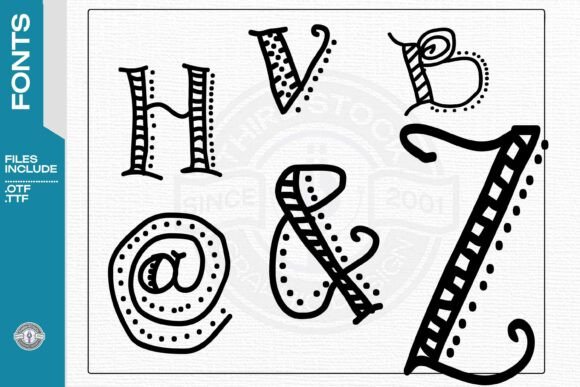
Introducing Chaotic Whimsy Font: A Masterpiece of Intricate Doodle Display
Are you a designer, crafty enthusiast, or a bohemian soul looking for a font that embodies your eclectic and meticulous style? Look no further than Chaotic Whimsy, an enchanting display typeface that captures the essence of a “bohemian-and-meticulous” aesthetic. This stunning font is a treasure trove of intricate details, featuring slender letterforms where every character is a canvas for unique hand-drawn patterns.
The Beauty of Detail: A Font Like No Other
Chaotic Whimsy is not just a font – it’s a work of art. Each character is meticulously crafted with a level of detail that will leave you mesmerized. The font features a range of hand-drawn patterns, from delicate stippling and spiraling swirls to tribal chevrons and organic leaf motifs. These intricate designs add a level of texture and visual interest to your text, making it perfect for projects that require a touch of bohemian whimsy.
Rhythmic, Varied Textures for a Unique Look
One of the standout features of Chaotic Whimsy is its rhythmic, varied textures. The font’s artisanal charm is evident in its irregular, hand-crafted feel, which adds a level of authenticity to your designs. Whether you’re creating a title for an independent adult coloring book, branding for a mystical apothecary, or a poster for an eclectic festival, Chaotic Whimsy provides a level of visual interest that will set your project apart.
Perfect for Boho-Chic Designs
Chaotic Whimsy is the premier choice for designers and crafters who specialize in boho-chic and detailed designs. The font’s eclectic, whimsical feel makes it perfect for projects that require a touch of sophistication and elegance. Imagine using Chaotic Whimsy to create a stunning social media header, a beautiful branding package for a mystical business, or a captivating title for a handmade craft project.
Use Cases for Chaotic Whimsy
So, what can you create with Chaotic Whimsy? The possibilities are endless! Here are a few ideas to get you started:
- Independent adult coloring book titles: Add a touch of whimsy and sophistication to your coloring book titles with Chaotic Whimsy.
- Mystical apothecary branding: Create a unique and captivating brand identity for your mystical apothecary with Chaotic Whimsy.
- Eclectic festival posters: Stand out from the crowd with eye-catching festival posters featuring Chaotic Whimsy.
- High-impact social media headers: Elevate your social media presence with stunning headers created with Chaotic Whimsy.
Why Choose Chaotic Whimsy?
So, why should you choose Chaotic Whimsy for your next project? Here are just a few reasons:
- Unique and eye-catching designs: Chaotic Whimsy features intricate, hand-drawn patterns that will set your project apart.
- Artisanal charm: The font’s irregular, hand-crafted feel adds a level of authenticity to your designs.
- Versatile: Chaotic Whimsy can be used for a wide range of projects, from titles and branding to posters and social media headers.
- Easy to use: Despite its intricate details, Chaotic Whimsy is easy to use and pairs well with a variety of other fonts.
In conclusion, Chaotic Whimsy is a one-of-a-kind font that embodies the essence of bohemian whimsy. With its intricate details, rhythmic textures, and artisanal charm, this font is perfect for designers and crafters who specialize in boho-chic and detailed designs. Whether you’re creating a title, branding package, poster, or social media header, Chaotic Whimsy is sure to make a statement. So why wait? Embrace the beauty of detail and add Chaotic Whimsy to your design toolkit today!